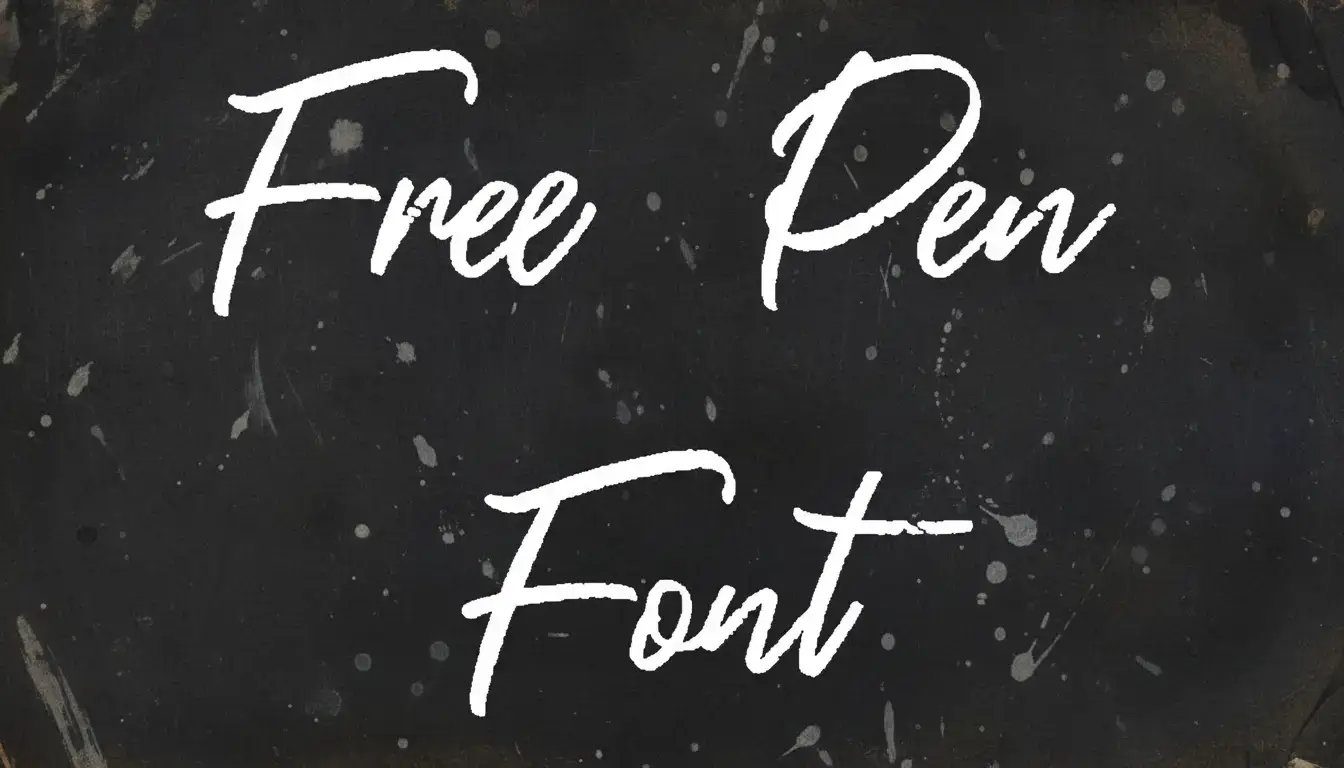
Free Pen Font
Free Pen is a script font created by Suzuran. Its flowing, pen-made letters give names and short phrases a personal, polished look. It's a free download, and you can try it with your own text in the preview above first.
What You Can Type With Free Pen
With complete upper and lowercase letters and all ten digits, Free Pen is ready for real wording, not just a single headline. Common punctuation such as &, !, ? and @ is included as well. It also has the accented letters you need for Spanish, French, German, Portuguese and Italian.
Where Free Pen Works Best
Free Pen is a natural fit for wedding invitations, logos and signature-style headings. Script fonts read best in short bursts, so keep it to names, titles and one-line quotes. Skip all caps: script capitals are drawn to start a word, not to fill one.
Does Free Pen support accented letters?
Yes. Free Pen includes the accented letters needed for Spanish, French, German, Portuguese and Italian, so it works for more than just English.